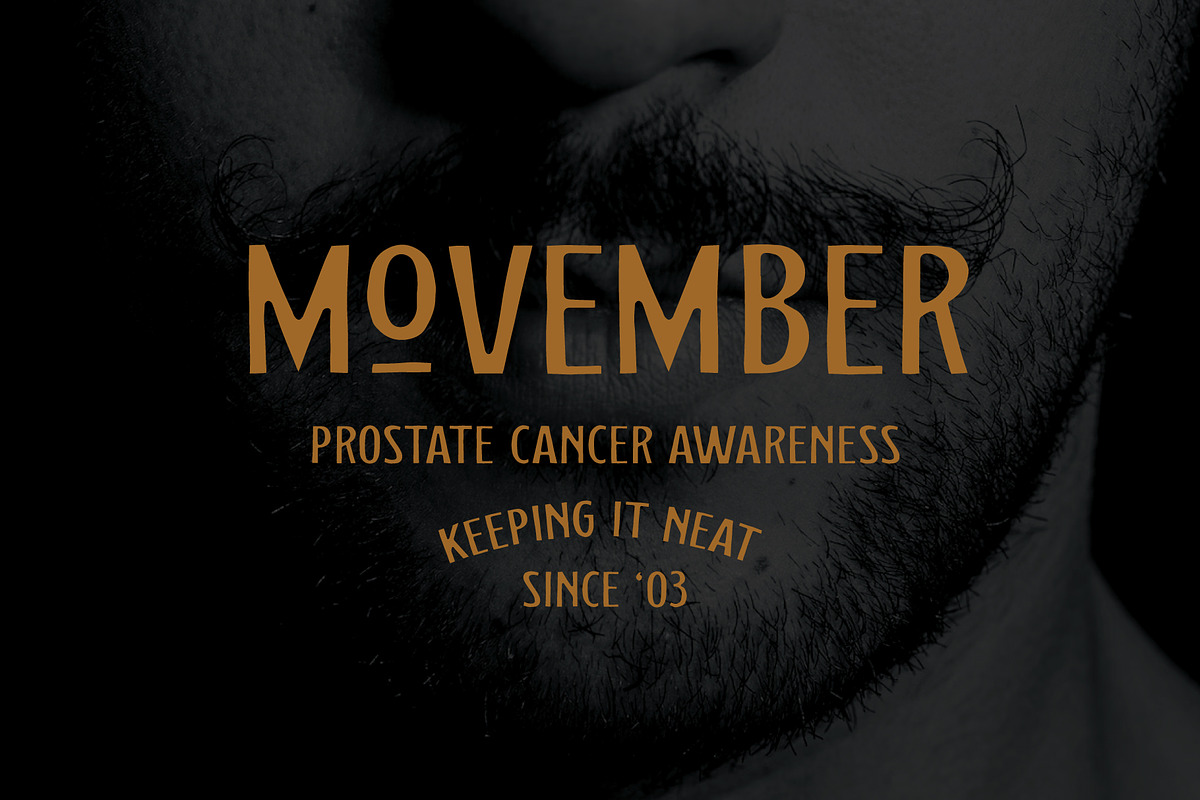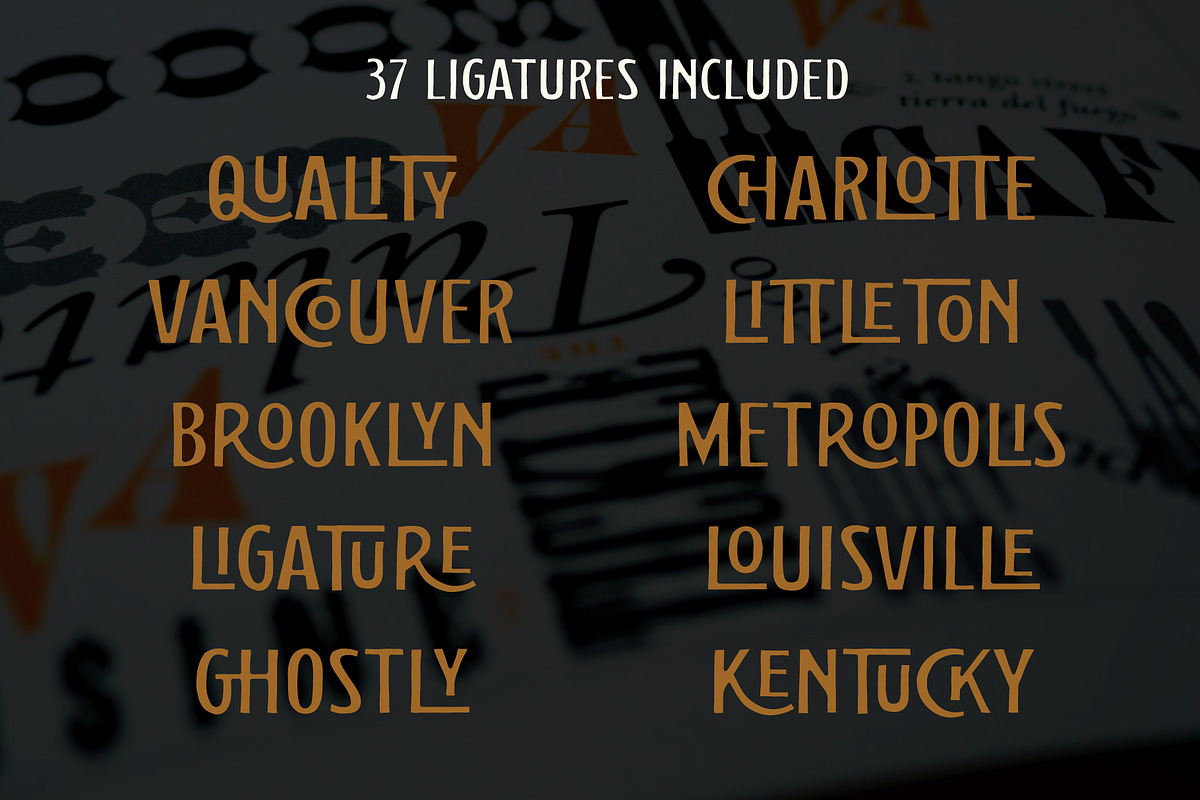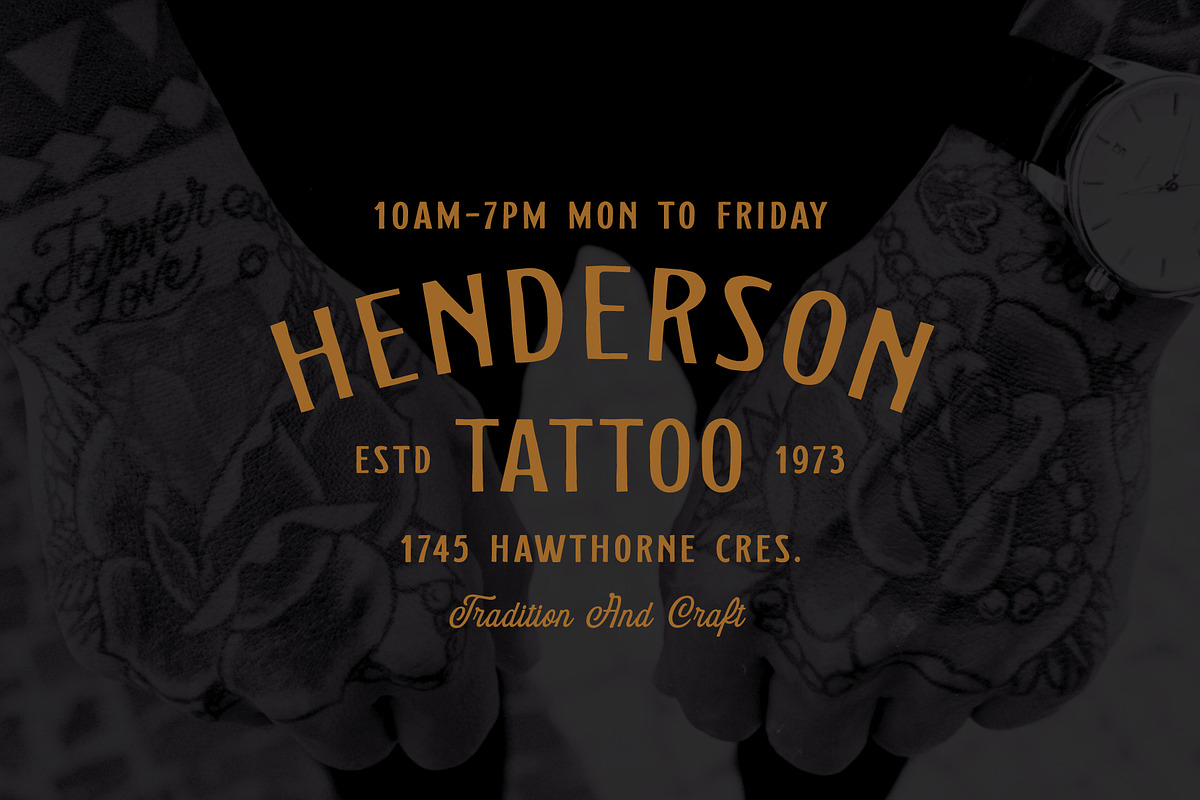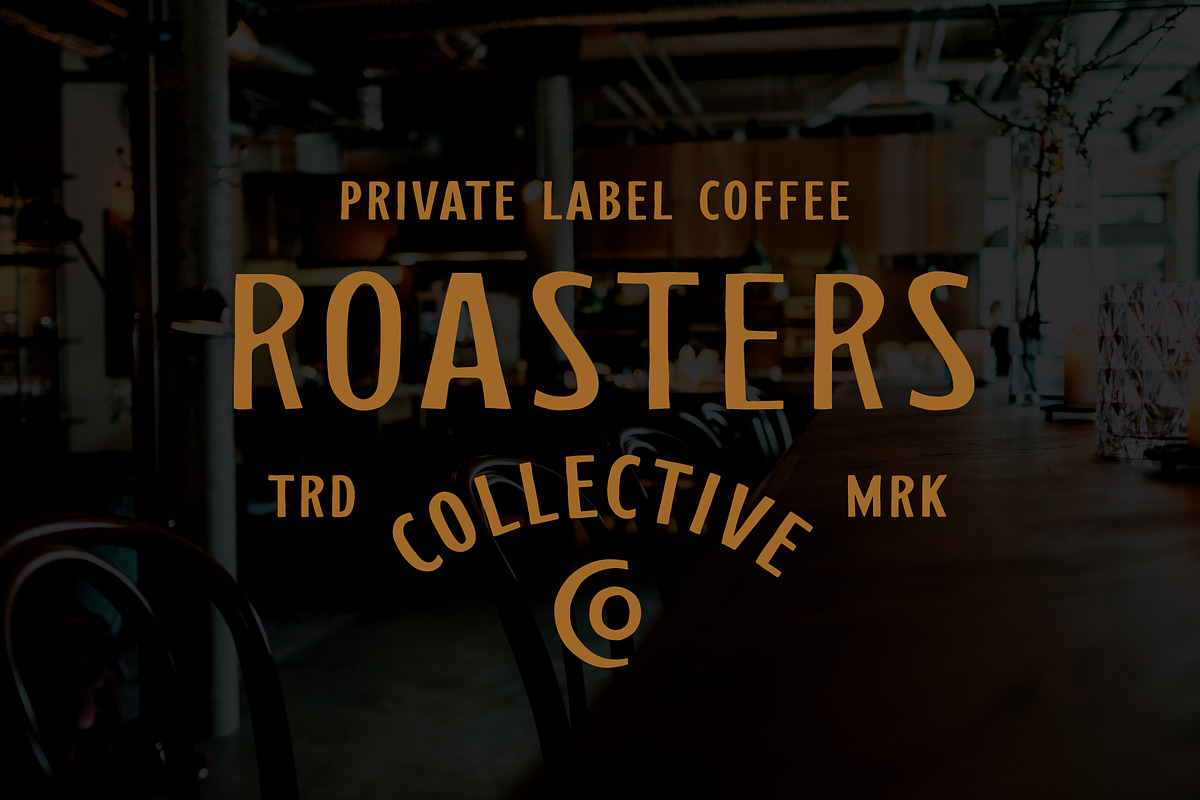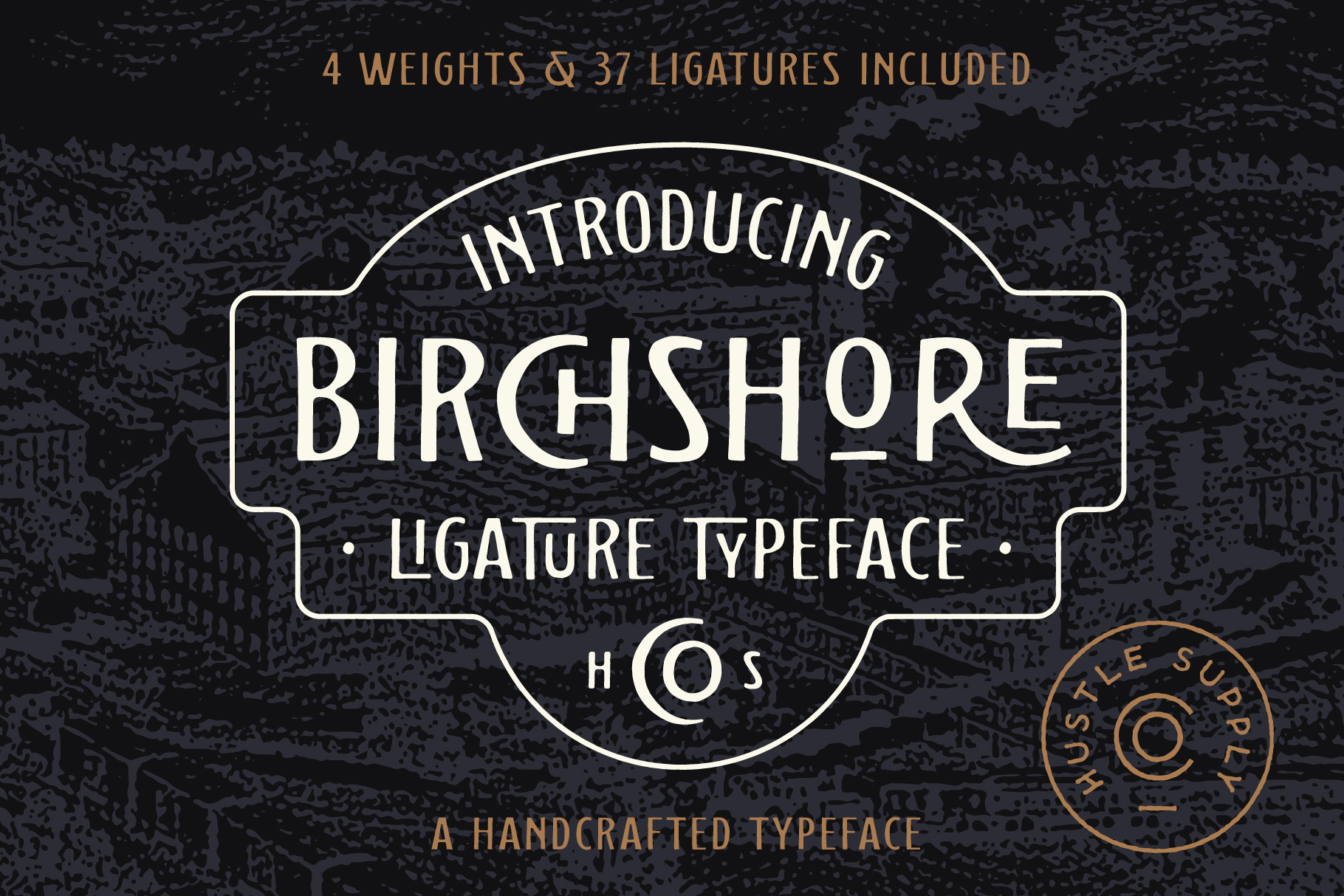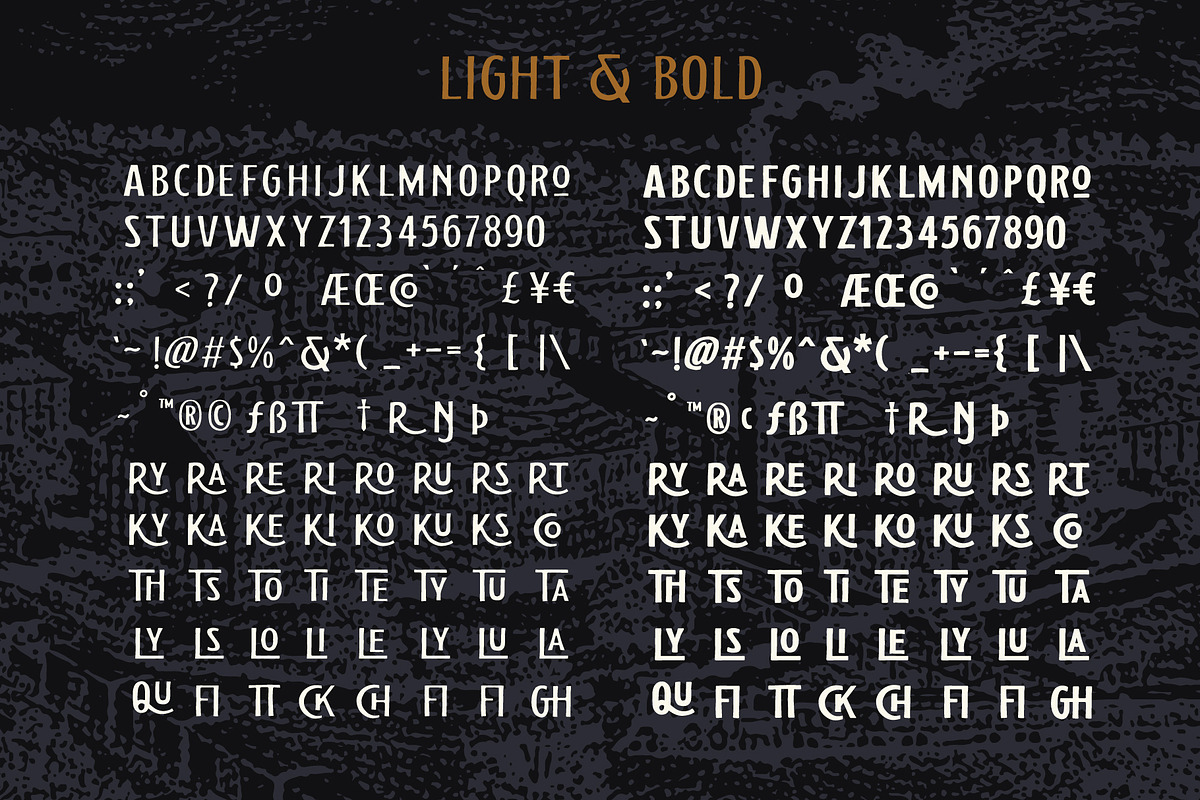
Birchshore - Ligature Font
Birchshore
Birchshore is a hand drawn ligature typeface with 37 ligatures + extra alternate characters. Birchshore comes in Light & Bold with oblique version of each.
- 37 Ligatures